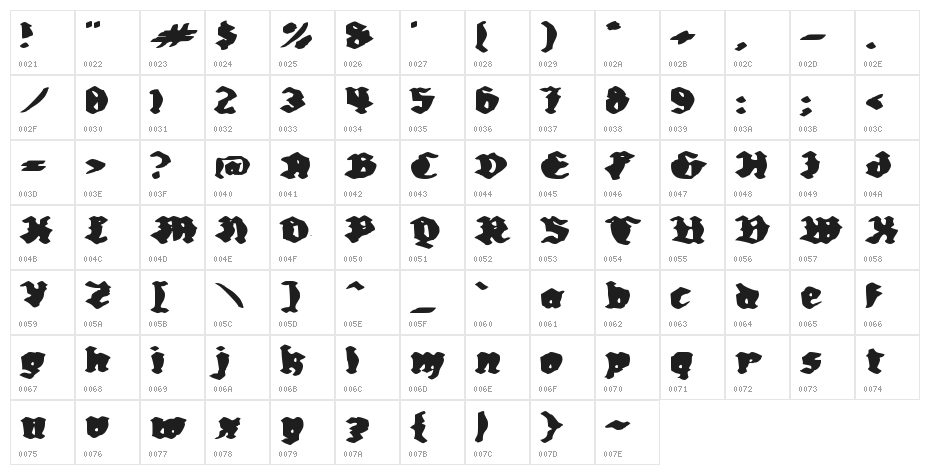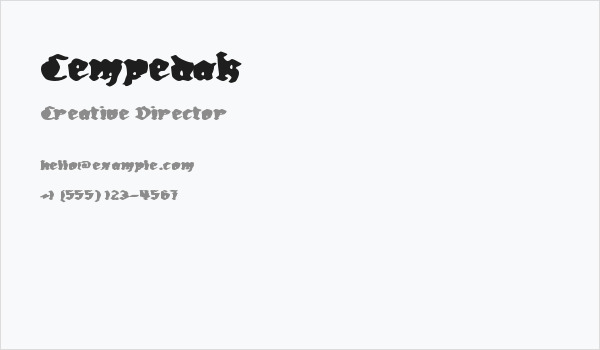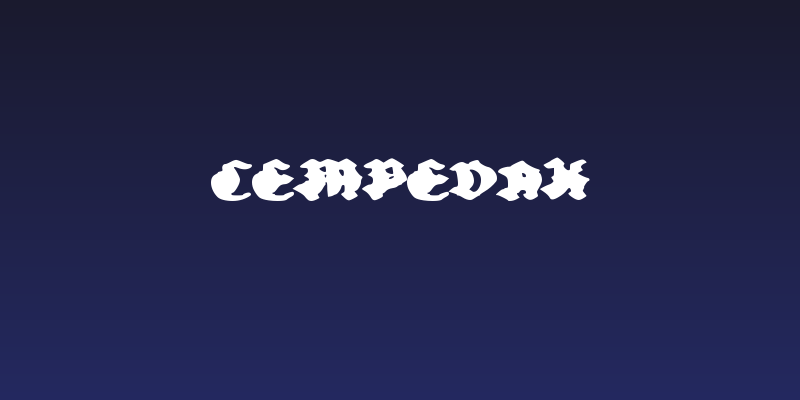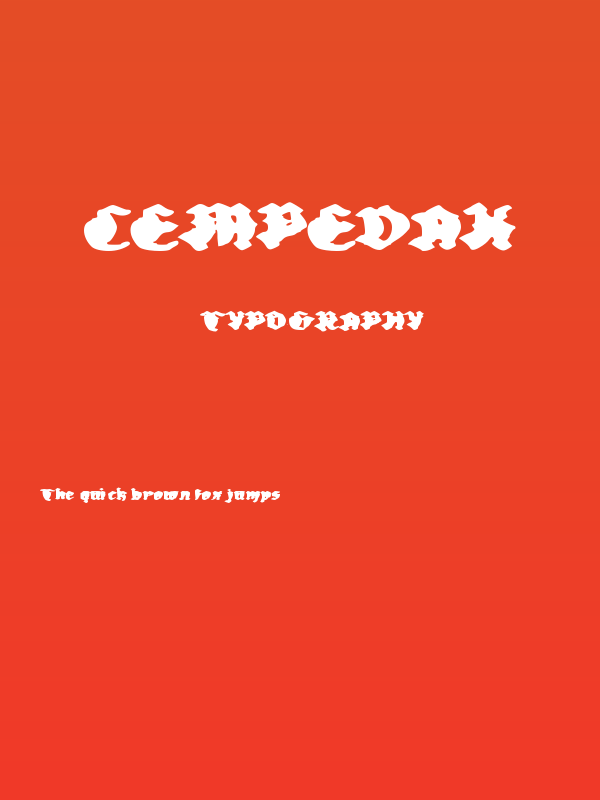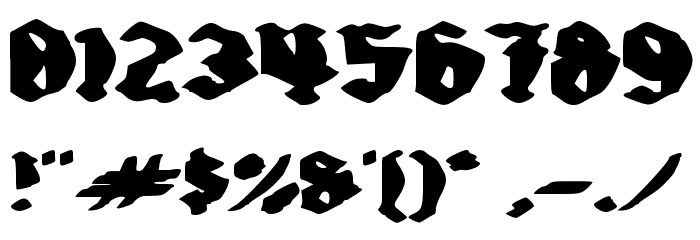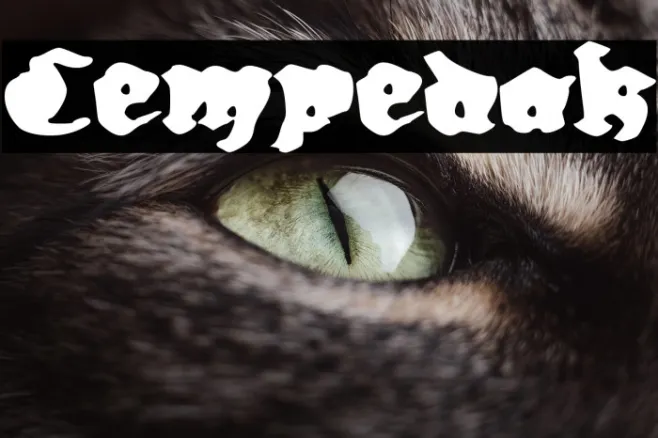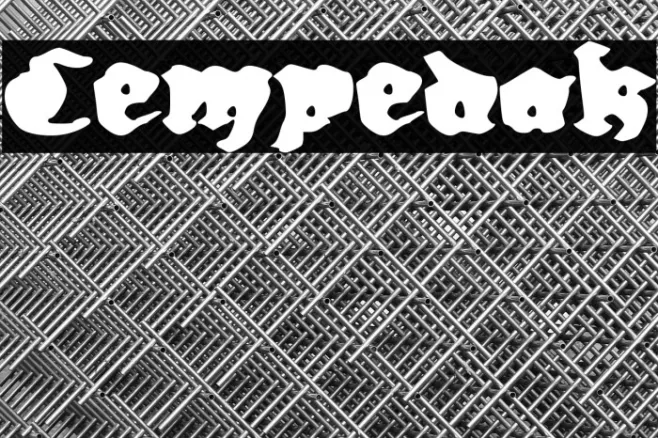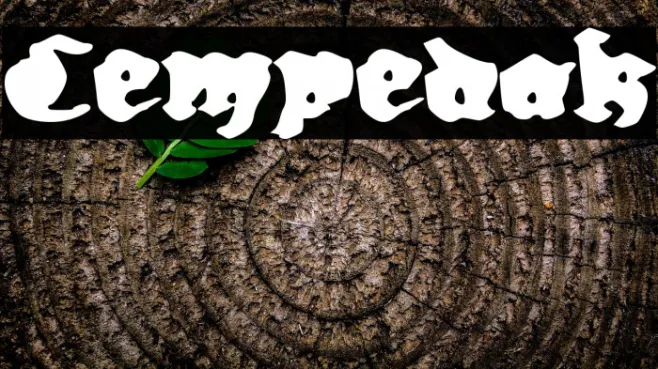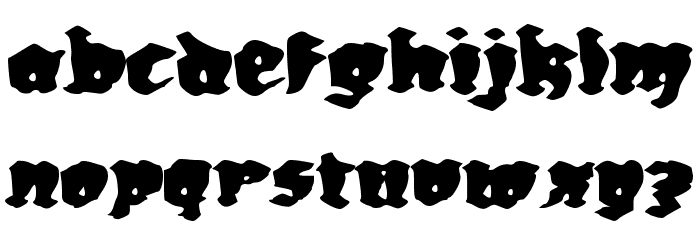
Cempedak Font
Cempedak Description
This font exhibits a bold and dramatic blackletter style, characterized by its thick, angular strokes and sharp edges. The uppercase and lowercase letters maintain a consistent weight, creating a cohesive and striking appearance. The numerals and special characters follow the same stylistic approach, ensuring uniformity across all glyphs. Its historical and gothic aesthetic makes it stand out, with a strong presence that commands attention. The font's intricate design is reminiscent of medieval script, offering a sense of tradition and formality.
| Proposed Projects | Ideal for projects requiring a historical or gothic touch, such as book covers, posters, branding for vintage products, or themed event invitations. |